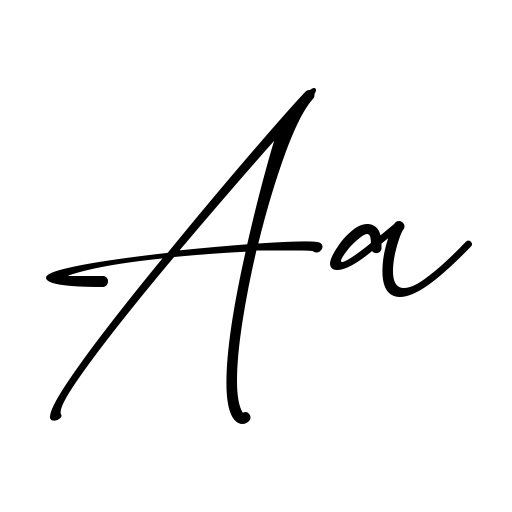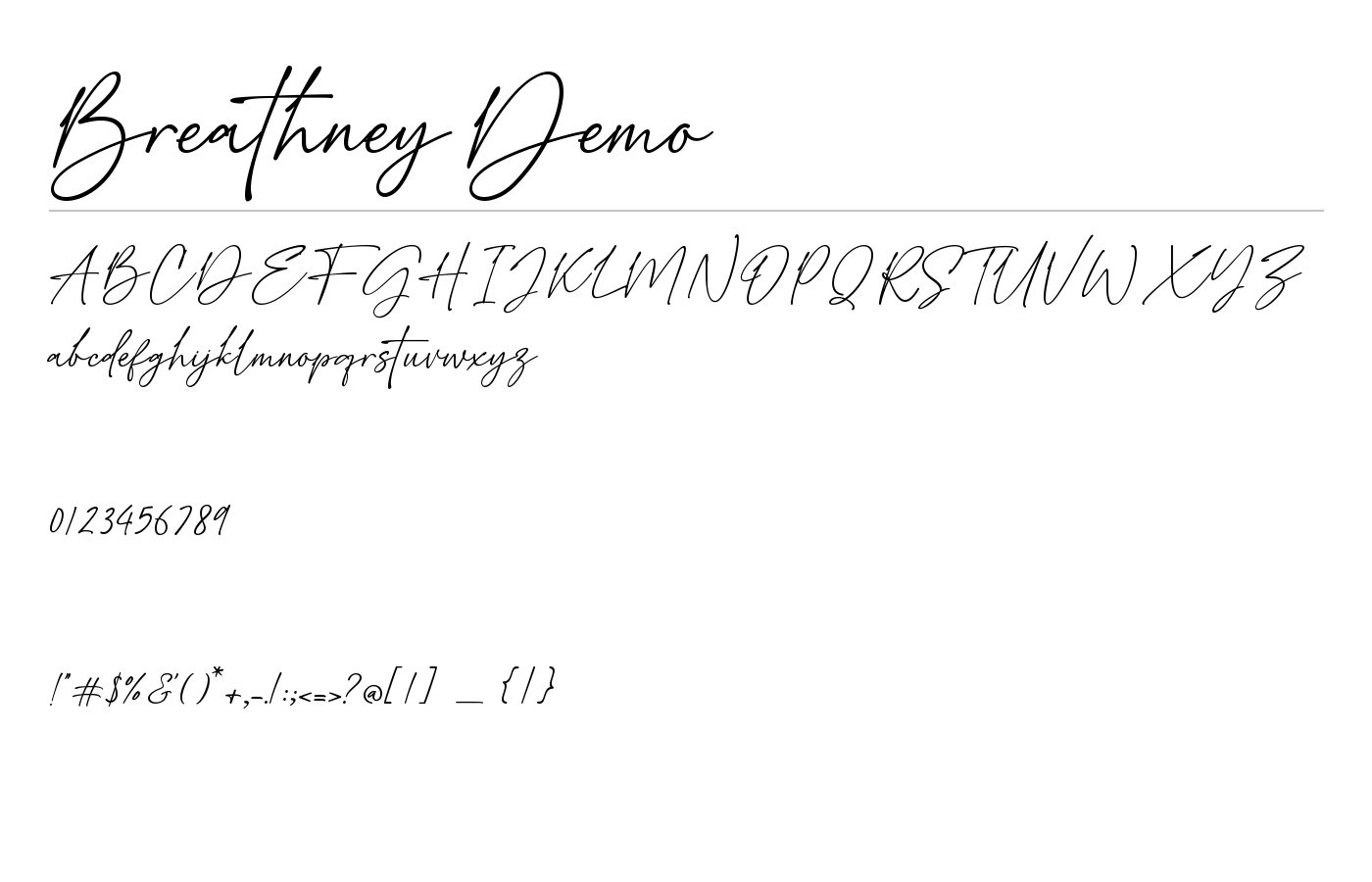
Breathney Demo is a delicate, modern script font with a flowing, handwritten style that feels elegant and personal. Its thin, slightly varied strokes and natural letter connections make it perfect for adding a graceful, sophisticated touch to invitations, branding, and editorial designs. This font works best where a refined, intimate atmosphere is desired, enhancing projects with a light and airy charm.
Breathney Demo Font
About Breathney Demo Font
| Font family | Breathney Demo Font |
| Designer | (MJB Letters). 2023. (Muhammad Mujibulloh) |